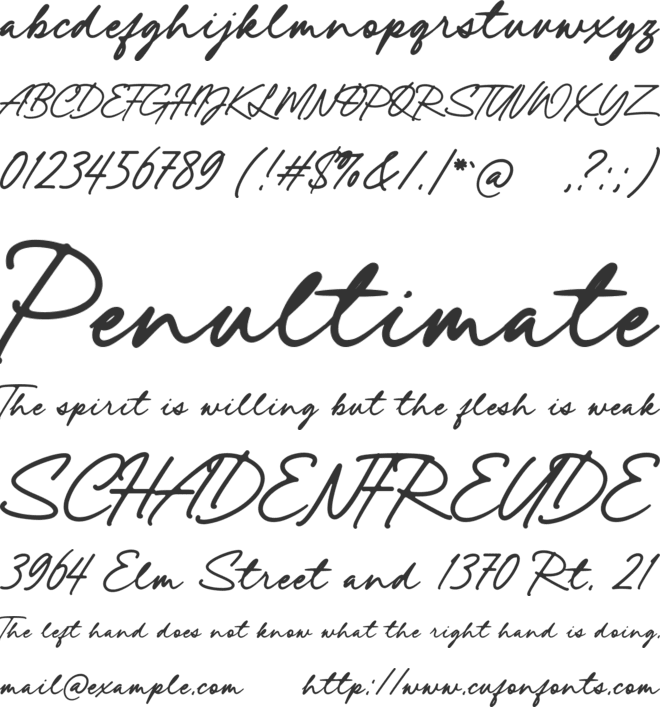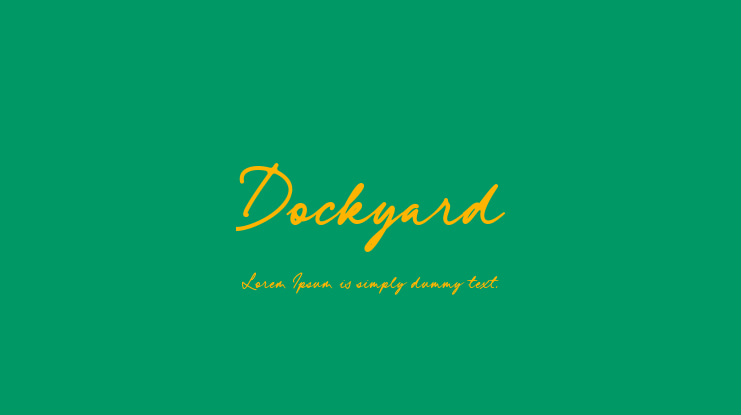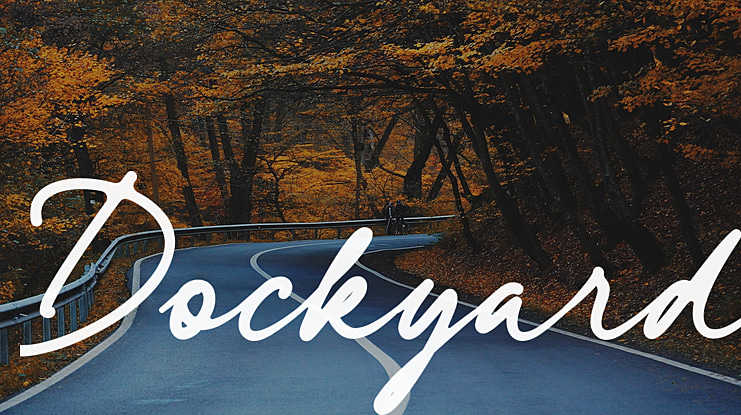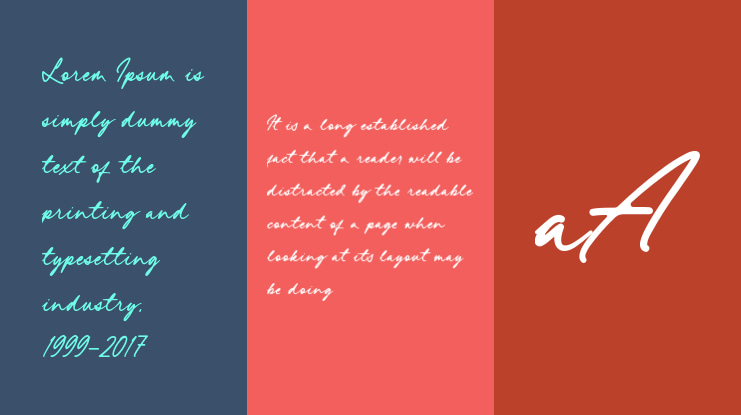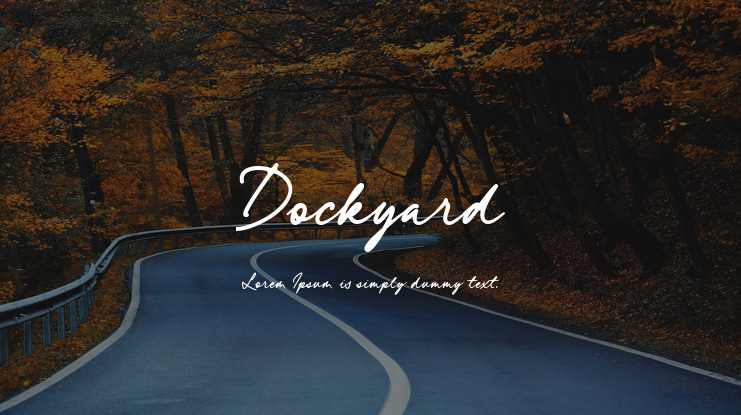
Dockyard Font
It’s a modern signature script typeface. With regular contrast stroke, fun character. Made from font designer named lemonthe. This font is perfect for logo, wedding invitations, stationery, photography, social media posts, product packaging, greeting cards, and much more!